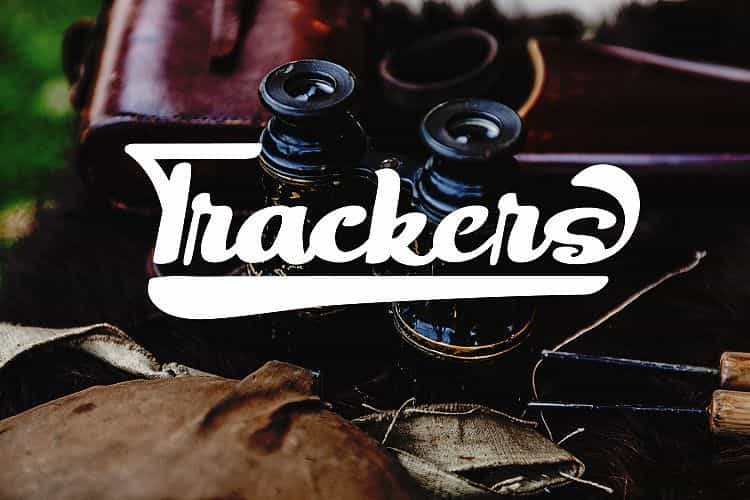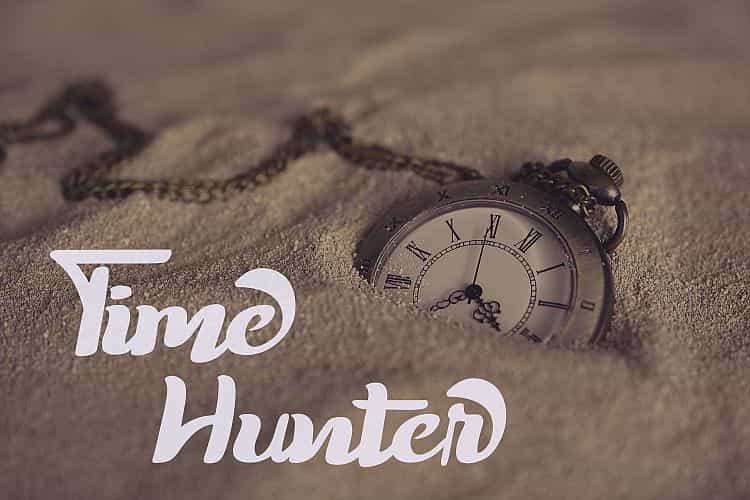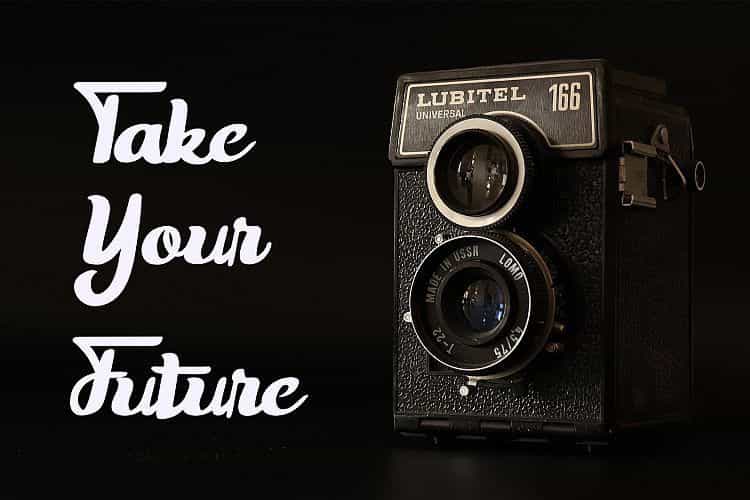
Trackers is a script font with an appealing simplicity. Packed with open type features including alternates and swashes it enables you to create lettering. Ideal, for logos, headings, covers, posters, quotes, product packaging headers social media posts & greeting cards – the possibilities are endless!